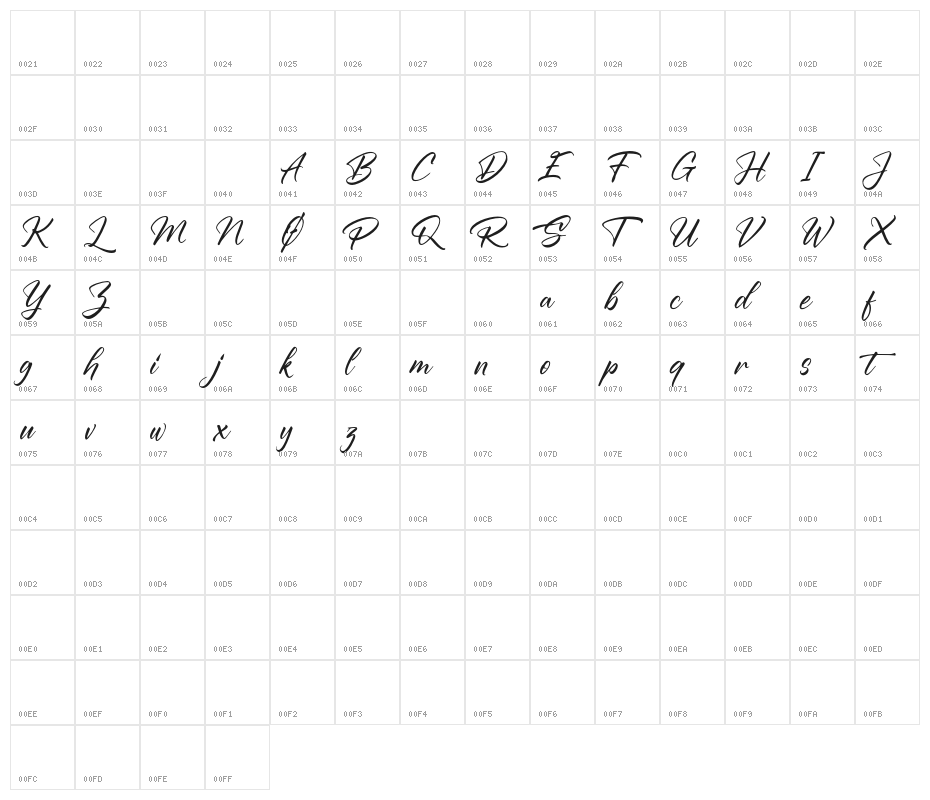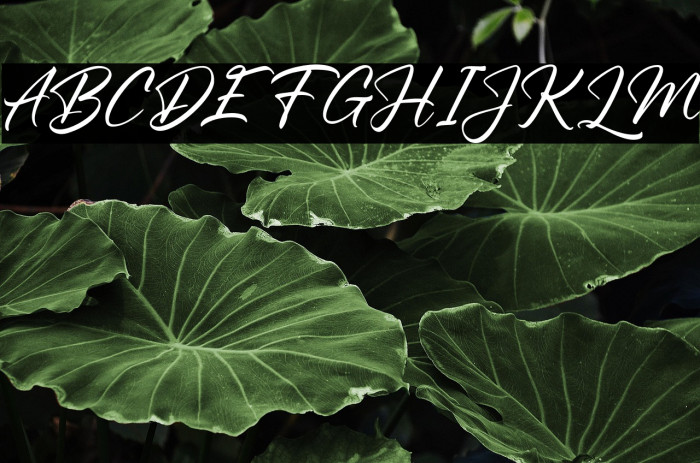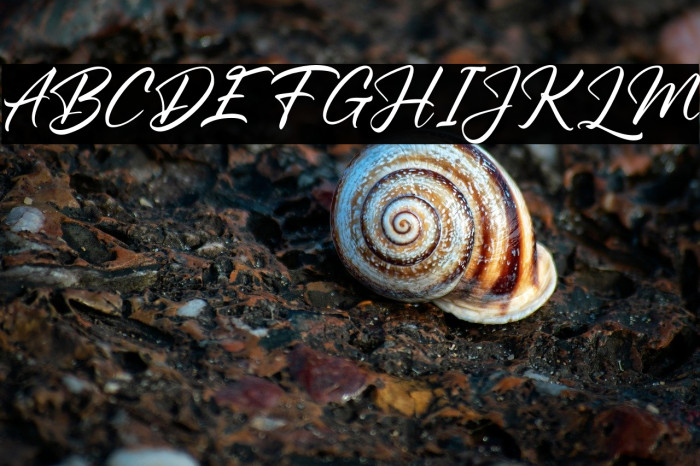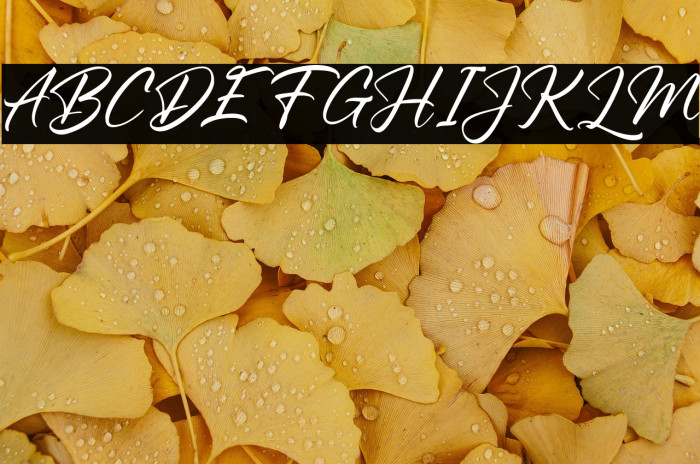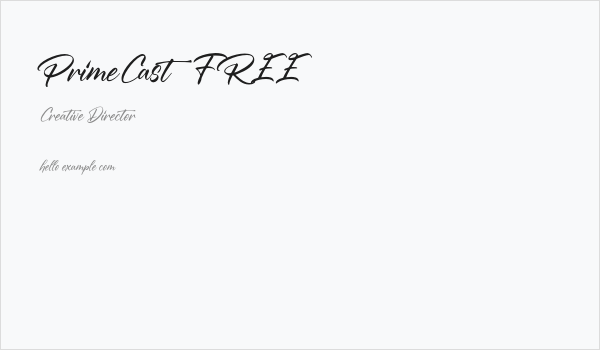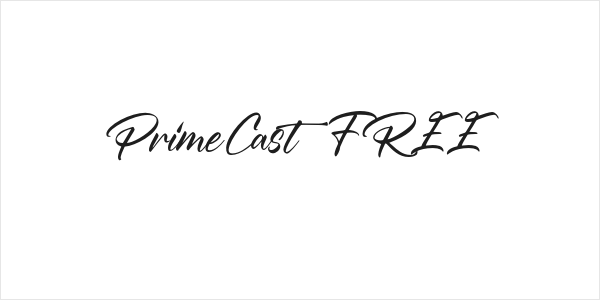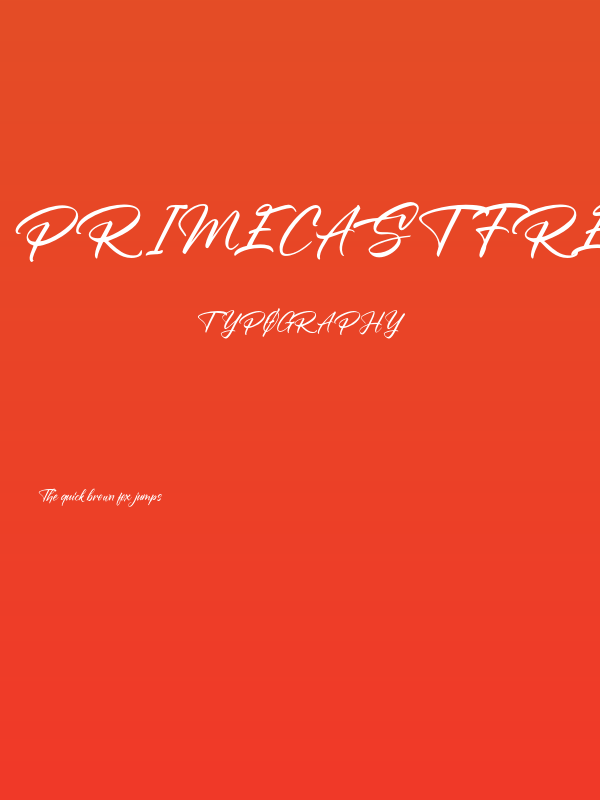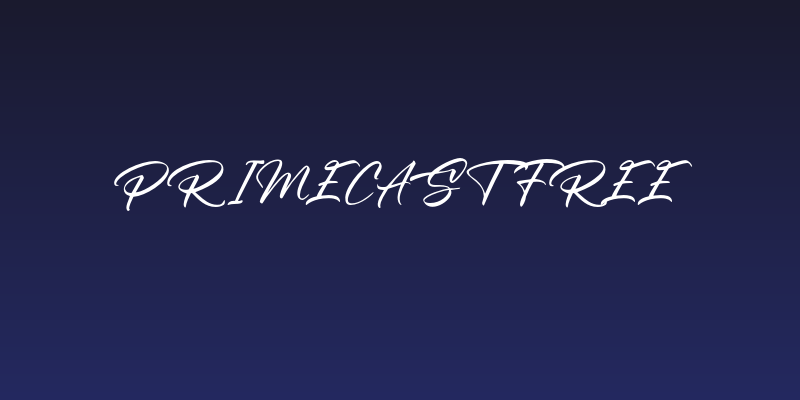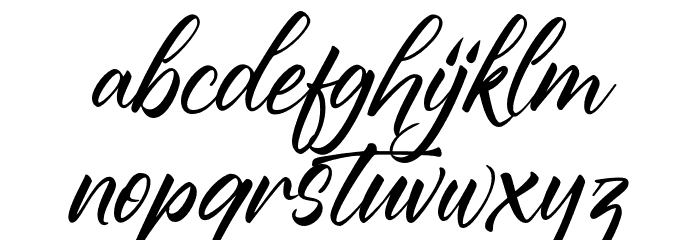
PrimeCastFREE Font
PrimeCastFREE Description
This font features a dynamic and flowing script style, characterized by its elegant and cursive letterforms. The uppercase letters exhibit a graceful, sweeping motion, while the lowercase letters maintain a consistent fluidity, creating a harmonious balance. The strokes are moderately thick, providing a bold presence without overwhelming the design. The font's overall appearance is both sophisticated and approachable, making it suitable for a variety of creative applications. Its distinct style is reminiscent of traditional calligraphy, yet it maintains a modern touch that enhances its versatility.